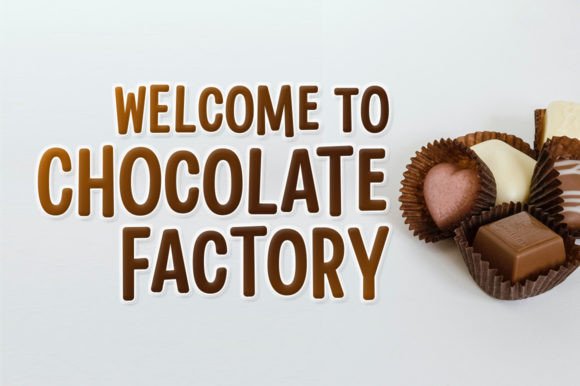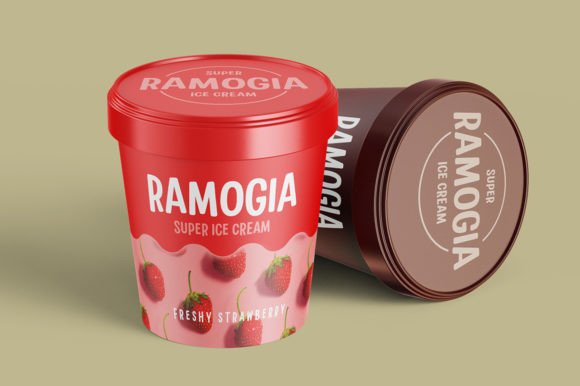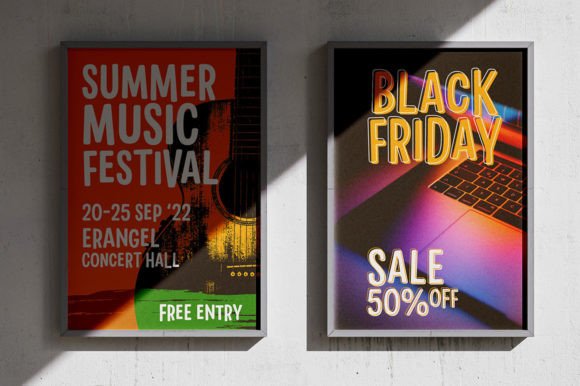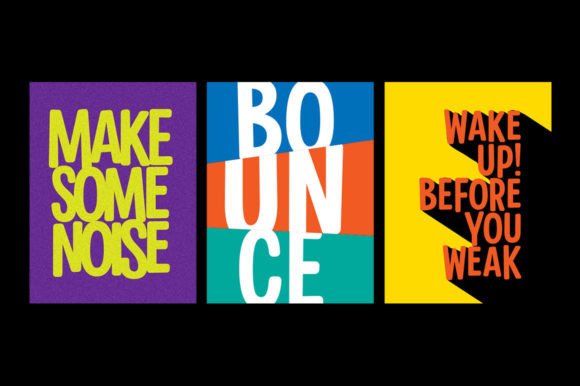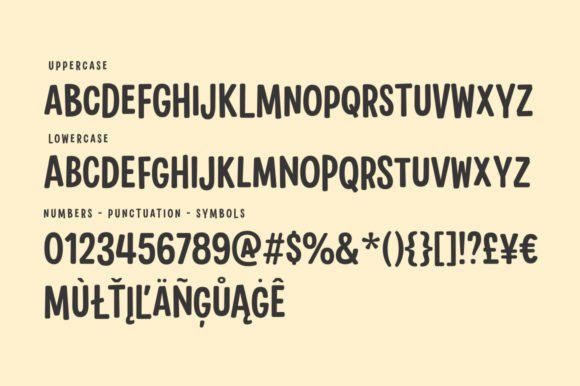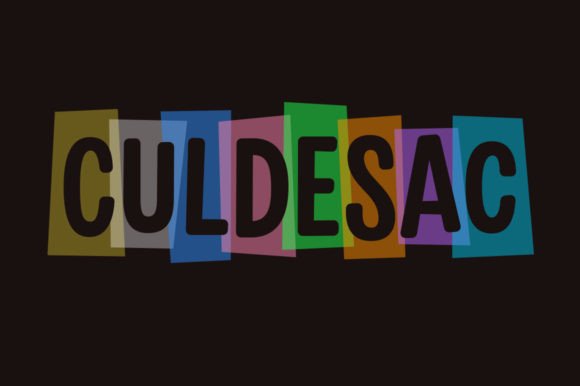
Introduction to Phatook Font
As designers, we’ve all been there – staring at a blank canvas, trying to bring our creative vision to life. But sometimes, it’s the smallest details that can make all the difference. Like the humble font, which can elevate or sink our entire design. That’s where the Phatook Font comes in – a game-changing sans all-caps display font that’s about to revolutionize the way you approach typography.
With its playful, bouncy baseline and fun, casual vibe, Phatook Font is the perfect addition to any design resource. Whether you’re working on a high-quality poster design, a children’s book cover, or a snack packaging project, this font is sure to bring a smile to your face and a touch of whimsy to your creative project.
Key Features of Phatook Font
- Unique characteristics include a modern, sans-serif design and customizable font styles
- Perfect for designers seeking a versatile and professional-looking font for their projects
Honest Review: Phatook Font
I recently had the chance to work with the Phatook Font, and I have to say, it’s been an interesting experience. As a designer, I’m always on the lookout for high-quality design resources that can elevate my creative projects.
What works well with the Phatook Font is its bold and playful vibe, which is perfect for projects that require a fun and energetic feel. The font is also super easy to download and install, which is a huge plus. Plus, it’s completely free, making it a great addition to any design arsenal.
One of the standout features of the Phatook Font is its transparent background, which makes it super versatile and easy to use on any design background. I also appreciate how it’s fully customizable, allowing me to tweak the font to fit my specific design needs.
What I Like:
- ✨ Bold and playful vibe
- ⚠️ Limited font styles available
- ⚠️ May not be suitable for formal or professional projects
Overall, I’m impressed with the Phatook Font, and I think it’s a great addition to any designer’s toolkit. While it may not be perfect, it’s a solid choice for creative projects that require a fun and playful vibe.